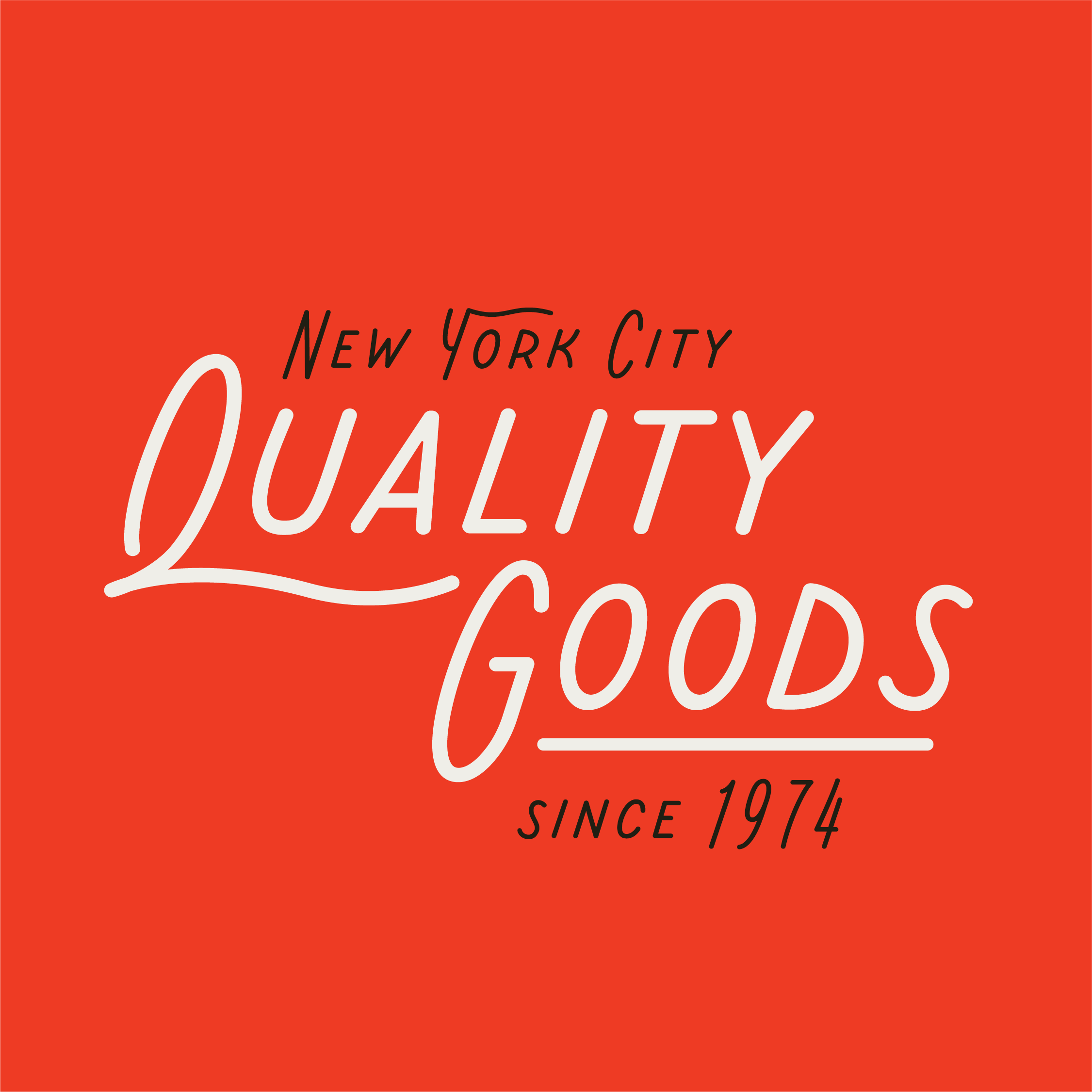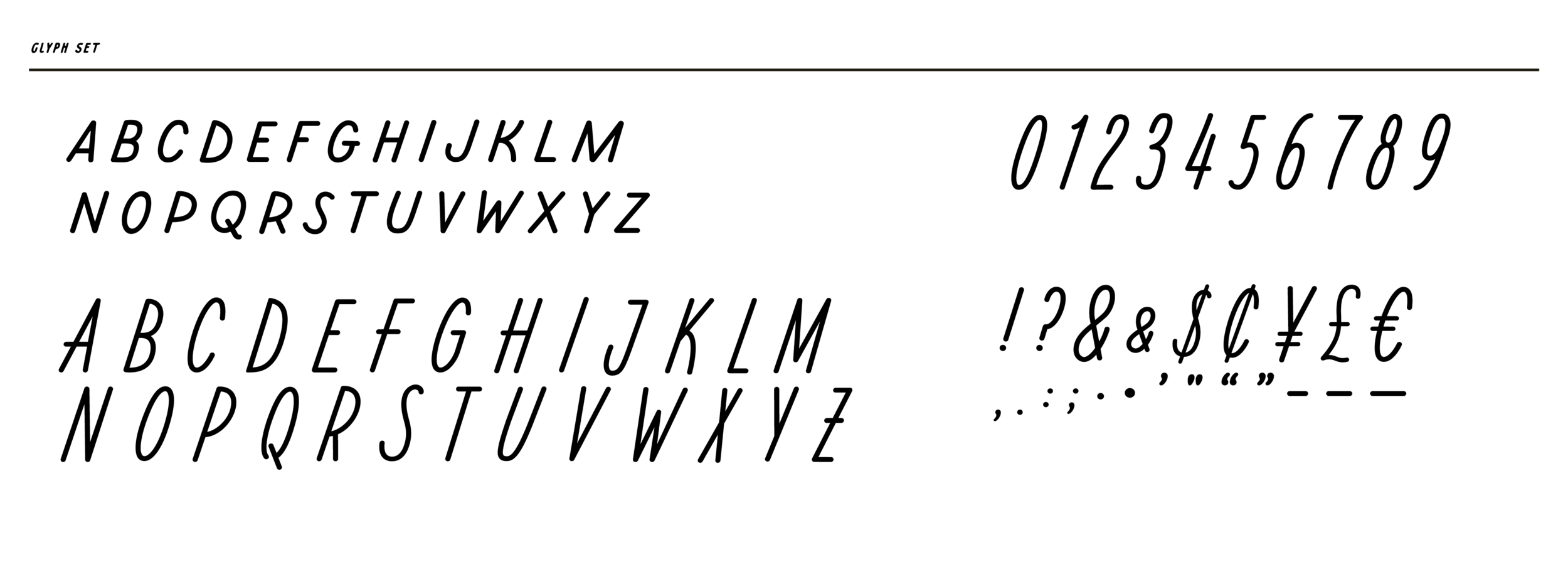
Bodega Cat
YRT Bodega Cat is a hand written, mono-line typeface with slim and oversized capitals. The alt glyphs for the capital letters infuse a little cursive into any design they’re used in.